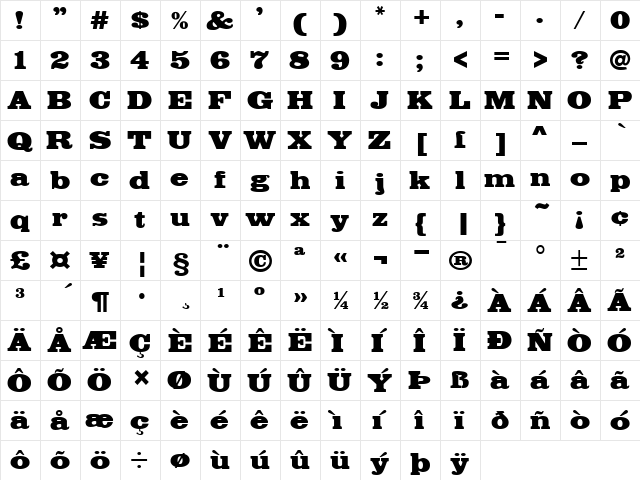
FetteEgyptienne Regular Font Preview
FetteEgyptienne Regular
FetteEgyptienne Regular Font Details
Design Context for FetteEgyptienne Typeface
FetteEgyptienne takes a measured approach to typography — its balanced proportions and neutral character make it a reliable workhorse for both digital and print work.